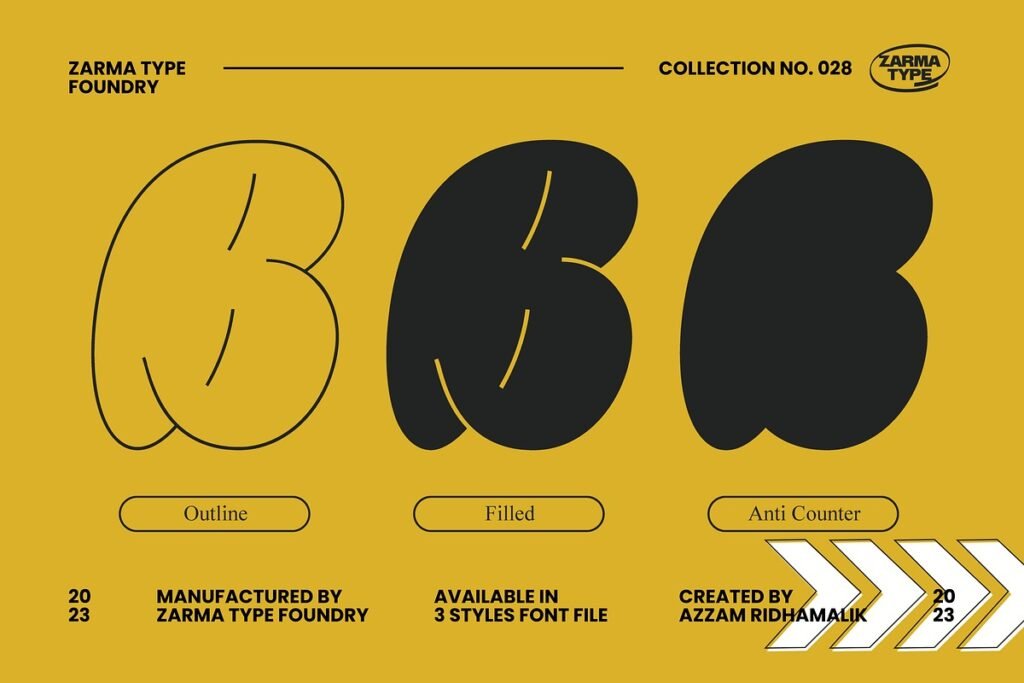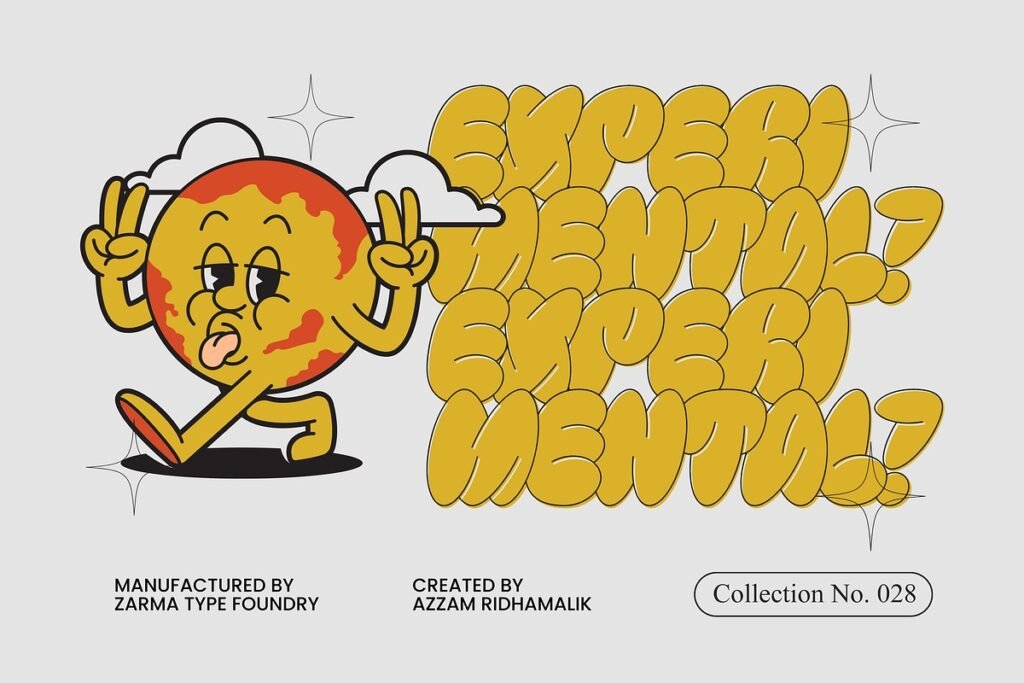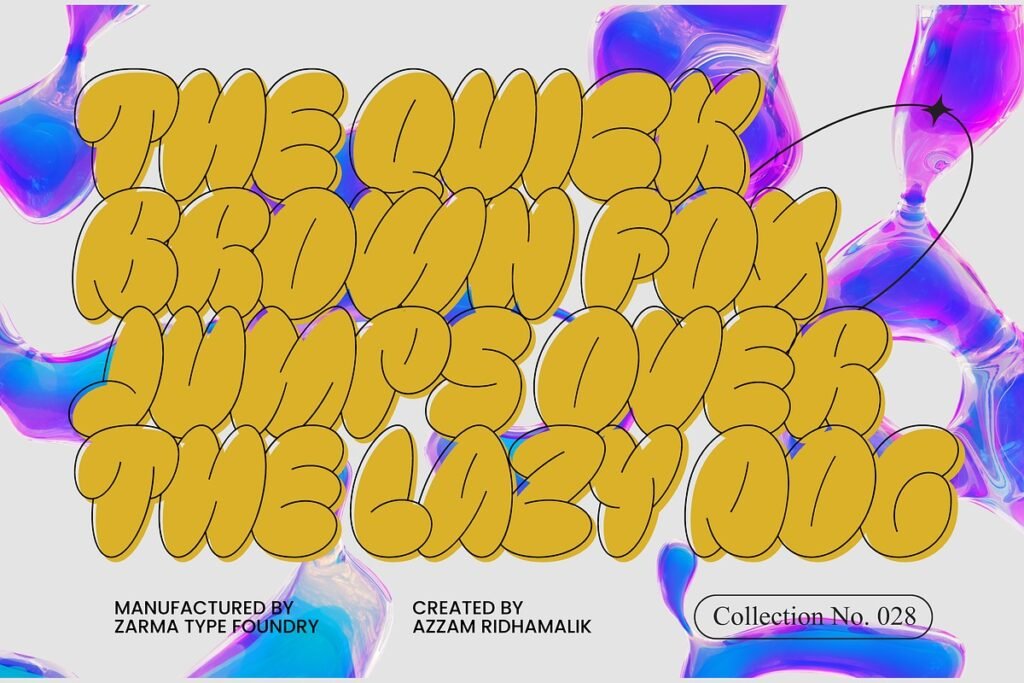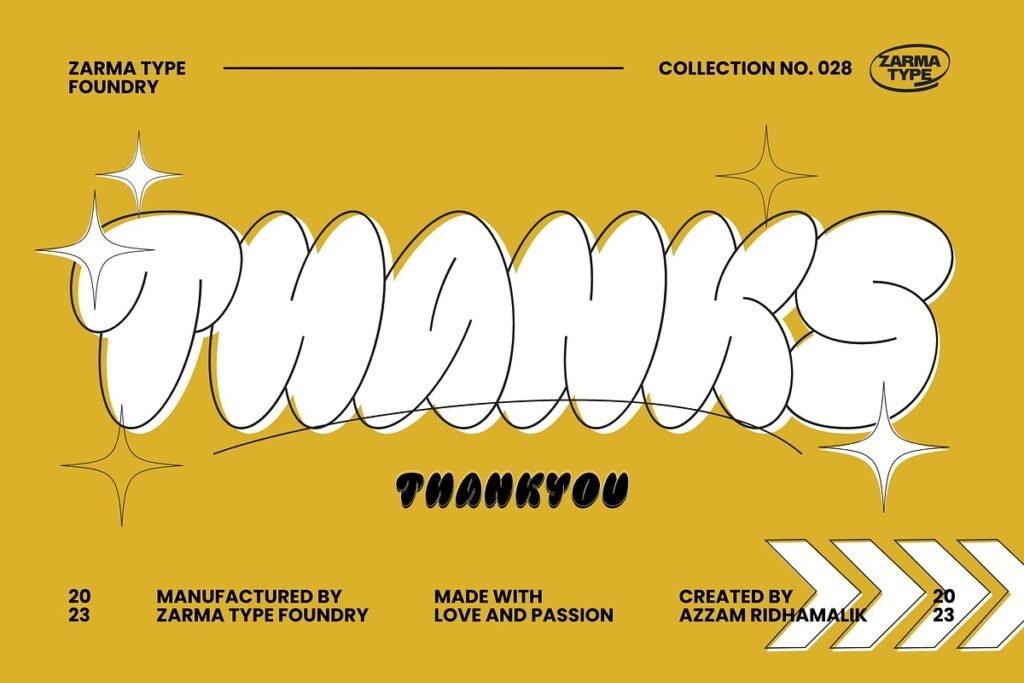
Bulbis Bubble Font
Bubble Font Bulbis, the latest addition to our font collection.
Bulbis Bubble Font
The font also incorporates a mix of y2k culture and streetwear visuals, which are currently trending in design identities. With its eye-catching appearance, Bulbis captures attention right from the start, drawing the viewer in to explore its fun and dynamic features.